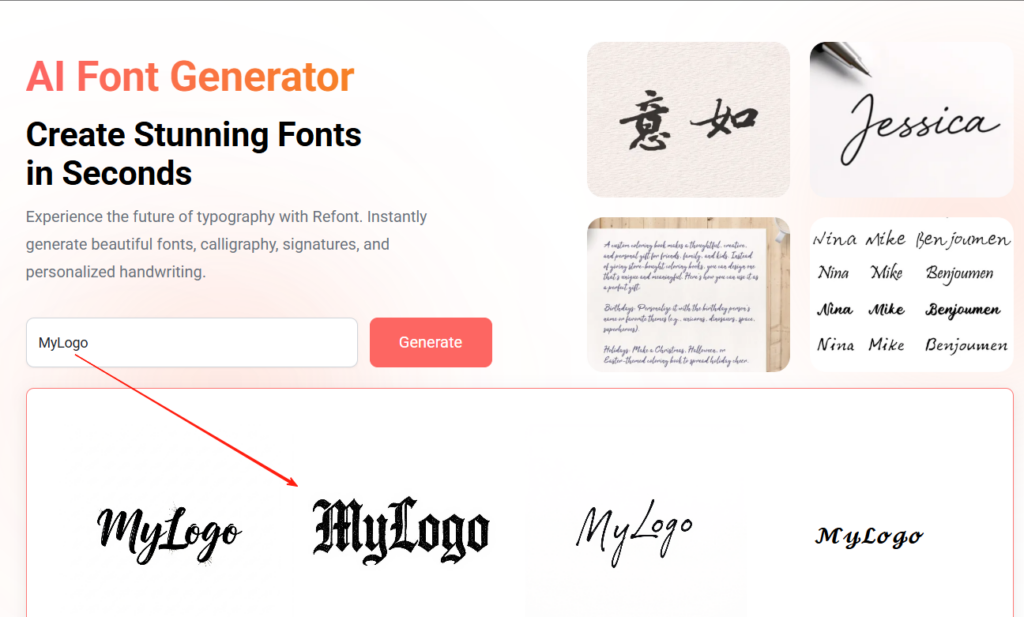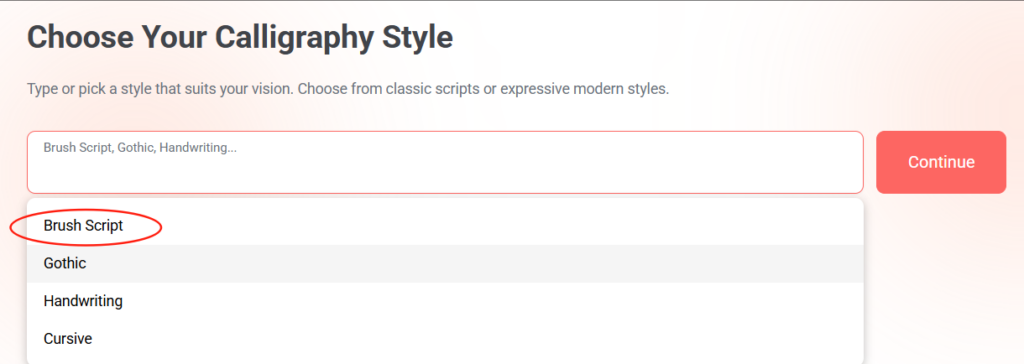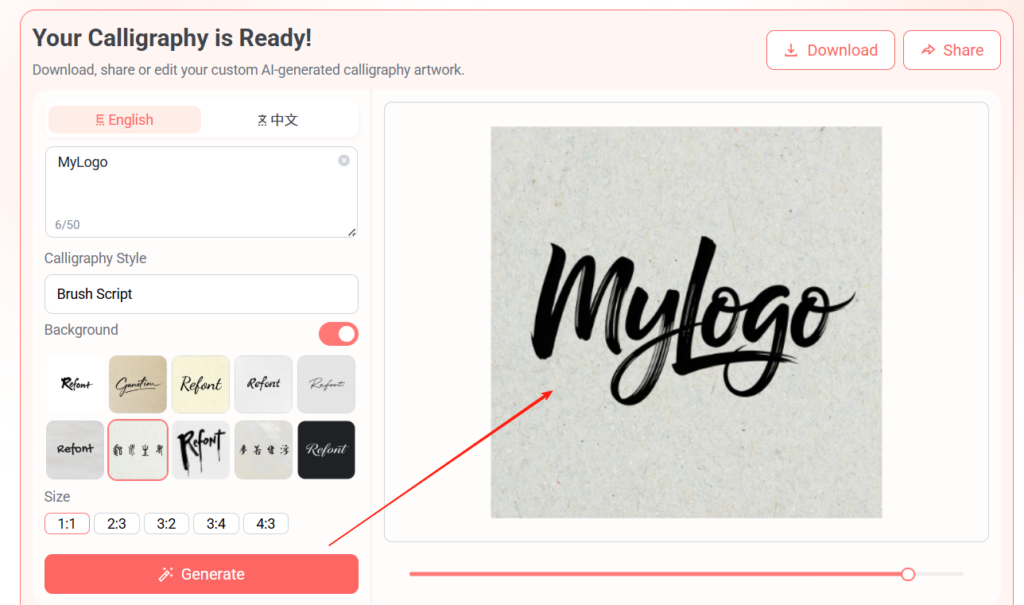
In today's fast-paced design world, designers face increasing creative pressure. Clients demand faster delivery times while expecting unique and high-quality design work. This is where AI font generators become invaluable allies, significantly enhancing work efficiency and sparking creative inspiration.
Rapidly Generate Multiple Font Variations
Traditional font design often requires weeks or even months to perfect a complete typeface. Now, designers can input brand names and descriptive keywords into an AI font generator to receive multiple design options within minutes.
When designing a logo for a tech company, you can input "Microsoft," "modern," and "technology" as keywords. The AI instantly generates dozens of different font stylesโsome lean toward clean geometric designs, others incorporate futuristic elements, and some feature gradient color effects.
For restaurant branding, entering "La Bella Vista" combined with "elegant" and "Italian charm" prompts the AI to create fonts with handwritten flair or designs featuring classical decorative lines. This rapid iteration allows designers to present diverse options to clients during the initial project phase, dramatically reducing early-stage communication time.
Breaking Through Creative Mental Barriers
Designers sometimes fall into their design habits, repeatedly using similar letterform structures or decorative elements. The value of AI font generators lies in their ability to produce innovative combinations that human designers might never have imagined.
Sarah is a graphic designer in New York. When creating a logo for an eco-friendly brand, she encountered a creative block. Traditional thinking led her to green colors and leaf-shaped decorative elements. However, when she used an AI generator and inputted "eco-friendly" and "natural," the AI created a design where letter strokes mimicked tree branch growth patternsโan organic letterform variation she had never considered.
Another example involves Michael, a brand designer in Los Angeles, who was creating signage for a coffee shop. The AI generator produced a solution that integrated coffee bean textures directly into the letter structures, rather than simply adding coffee bean graphics around the font. This intrinsic fusion approach made the entire design more harmonious and unified.
Innovative Style Fusion Technology
One of the most exciting features of artificial intelligence font generators is that they can seamlessly combine seemingly incompatible design elements. Designers can specify multiple style attributes simultaneously, allowing AI to create unique hybrid effects.
Imagine combining the classic charm of "serif fonts" with the modern simplicity of "geometric design," then adding the cool visual impact of "neon light effects." Traditional design methods struggle to harmonize these elements, but AI can find the balance point between them, creating font designs that possess both classical elegance and modern technological appeal.
Emma, a British designer working on a music festival poster, attempted to fuse the mysterious quality of "Gothic style" with the approachability of "handwritten fonts" while incorporating "futuristic" fashion elements. The AI generator created a unique solution: letters maintained Gothic sharp contours but strokes adopted handwritten fluidity, while the overall structure presented the glowing effects commonly seen in science fiction films. This triple fusion result would be difficult to achieve manually in a short timeframe.
Simple and User-Friendly Operation Process
Using the AI font generator is extremely simple and user-friendly - any designer can get started right away:
- Enter your desired text content in the input field
- Select font types that match your project requirements from style options
- Click the generate button and wait for AI to create your custom font design
The entire process usually takes place within 30 seconds. Designers can immediately see the result. If they are not satisfied, they can adjust the parameters and regenerate it. This instant feedback workflow makes the creative process more fluid and efficient.
Conclusion
AI font generators don't aim to replace designers' creative work but serve as powerful tools for enhancing efficiency and expanding creative boundaries. They enable designers to invest more time in conceptual development and detail refinement rather than spending extensive time on repetitive letterform drawing tasks. For modern designers, being proficient in the use of artificial intelligence tools has become a crucial skill for maintaining a competitive edge.
Whether you're a seasoned designer or industry newcomer, AI font generators can help you explore new possibilities in typography, creating more unique and compelling visual works.